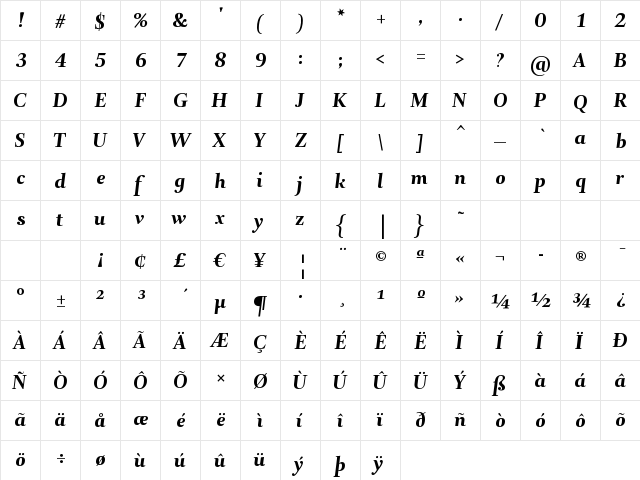
ArnhemFine-BoldItalic Regular
Design Context for ArnhemFine-BoldItalic Typeface
ArnhemFine-BoldItalic is a composed and adaptable typeface that performs quietly and consistently across a wide range of design contexts. The slanted form adds forward momentum and visual energy. Its bold stroke weight gives it real presence on the page.
Pro Tip: Use ArnhemFine-BoldItalic for emphasis, pull quotes, and subheadings where its slanted energy can add rhythm to the layout.